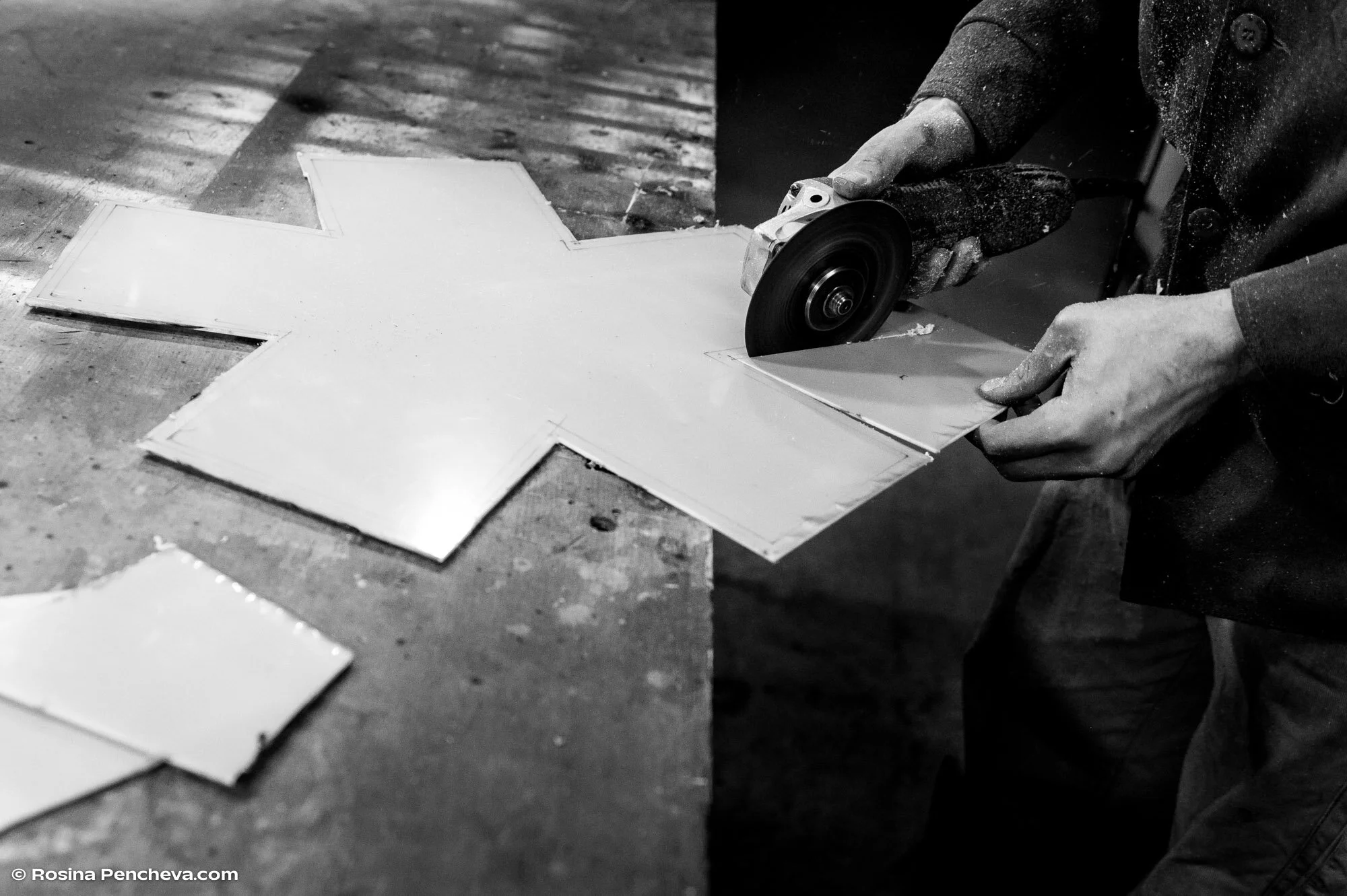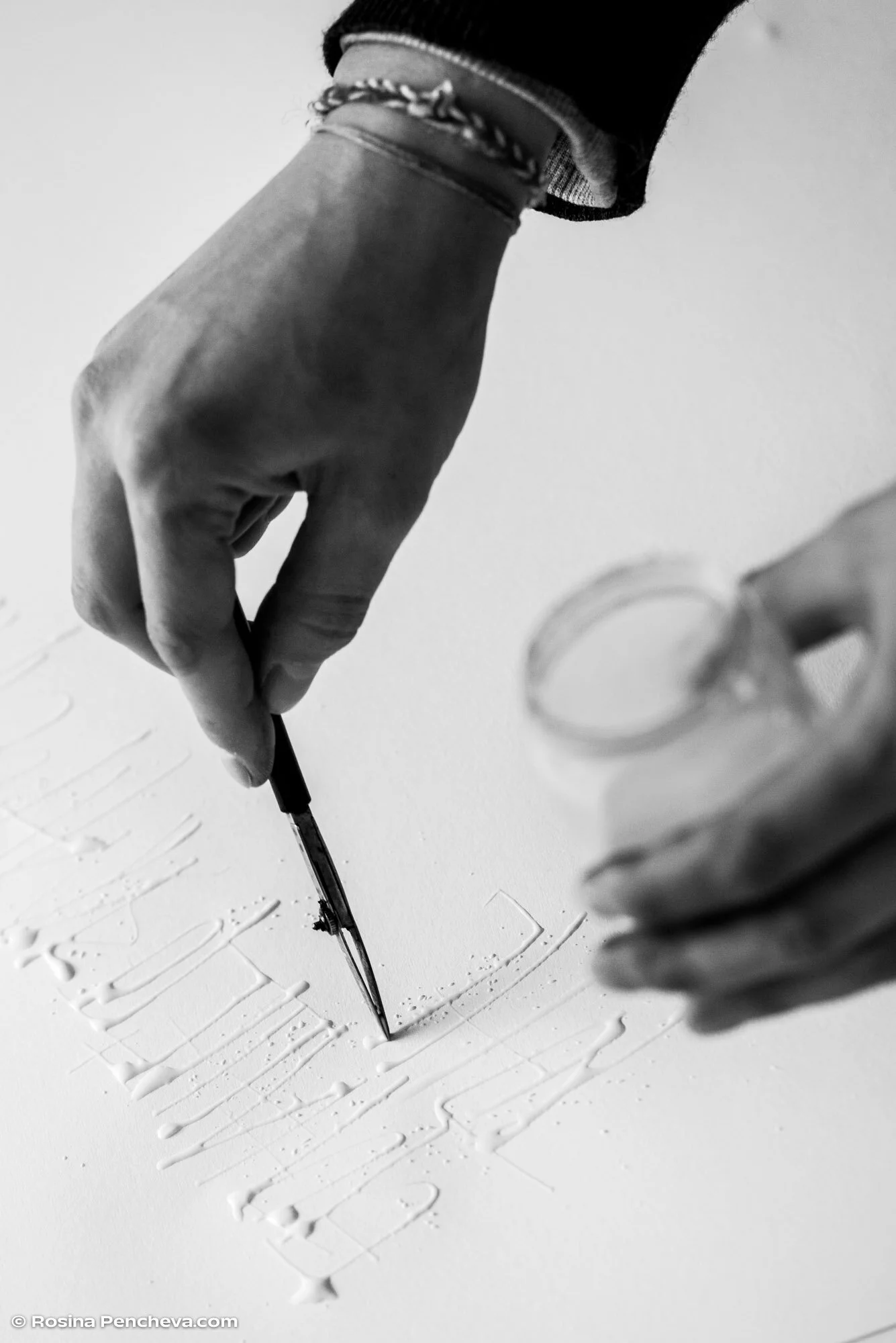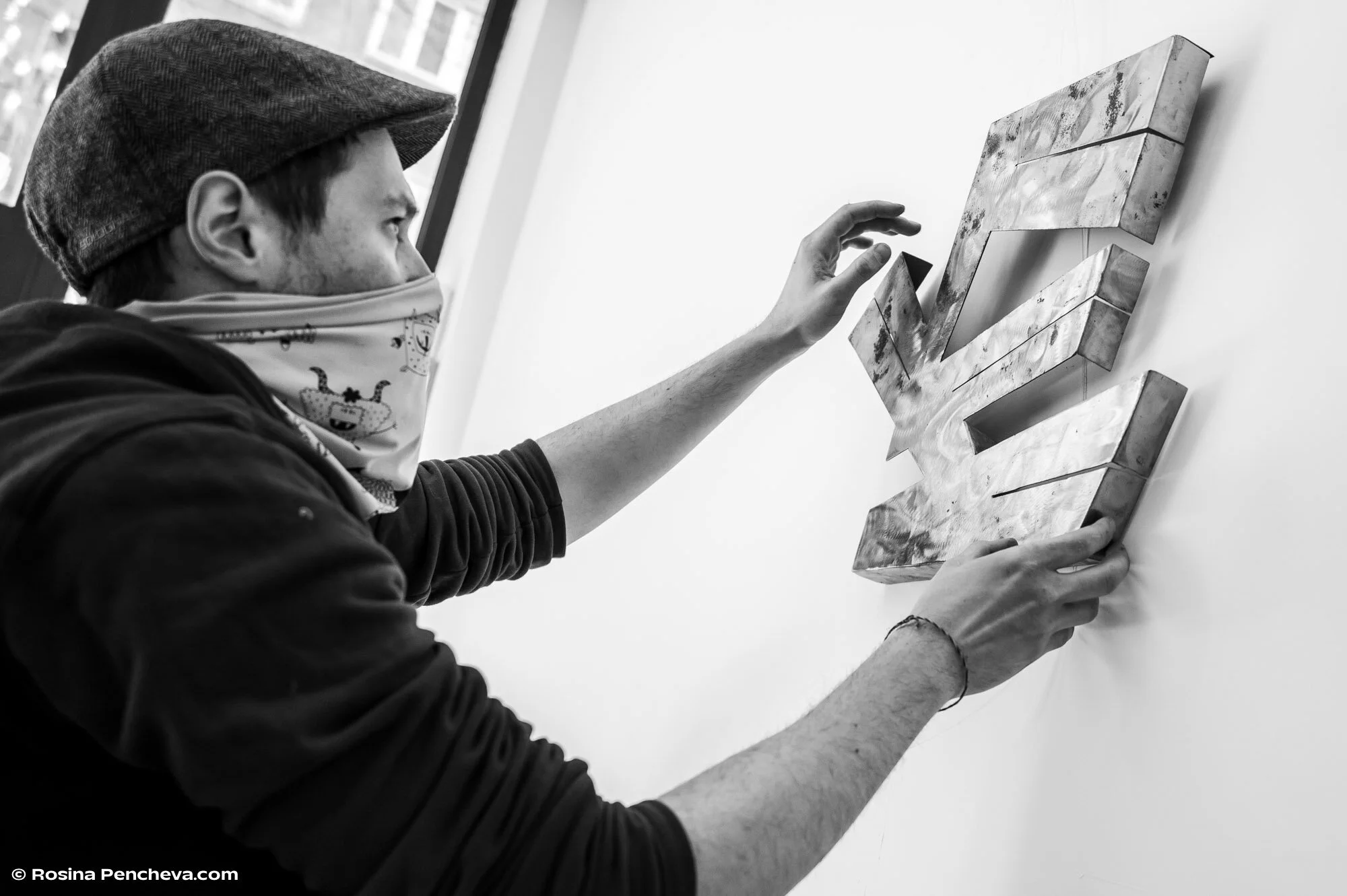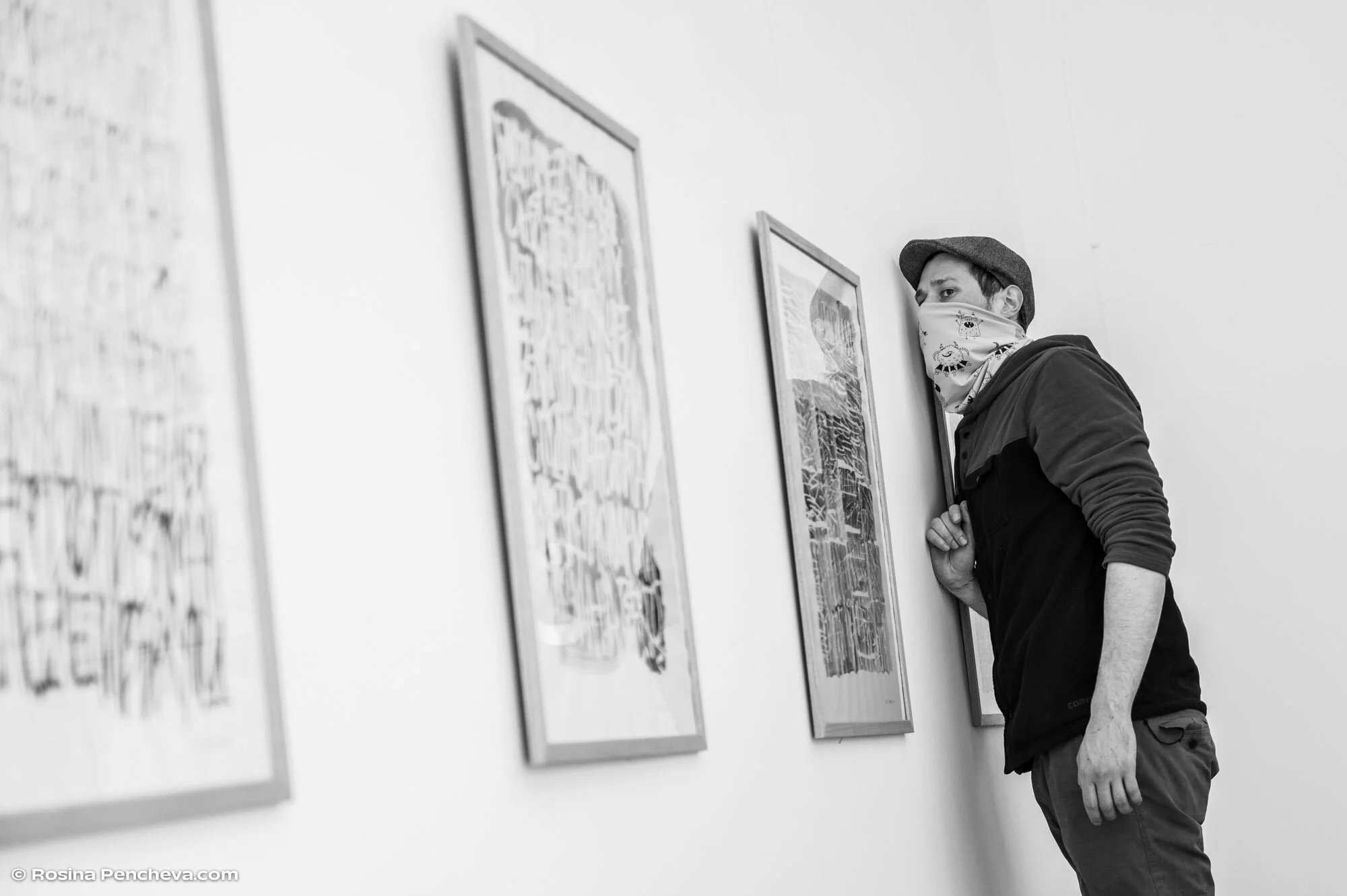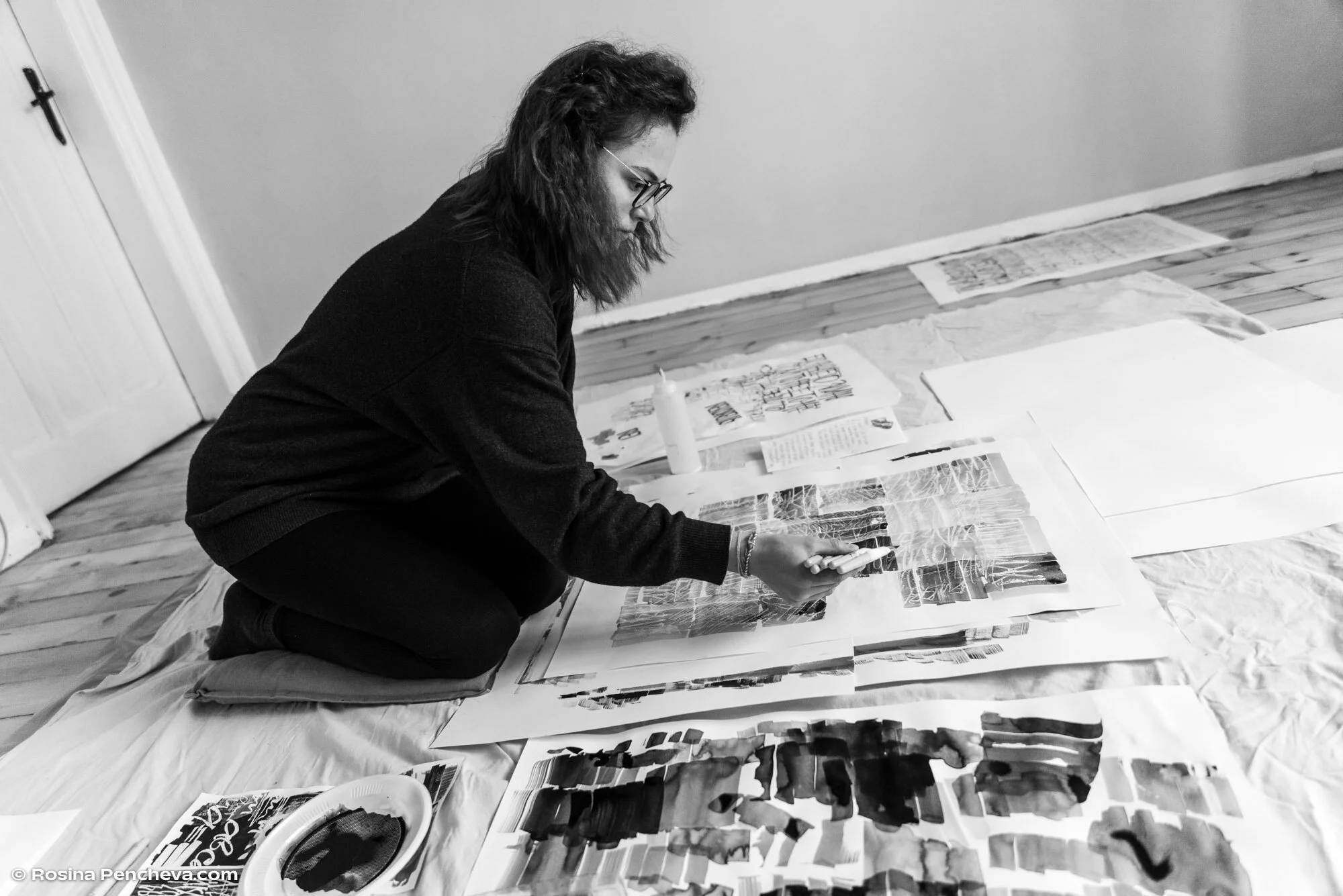
The root of happiness
Crafting of objects: Todor Georgiev
Calligraphic works by: Jacklina Jekova
Altruist is a cosy urban café in the heart of Sofia where we had the opportunity to showcase some of our non-client work during the first wave of the Covid-19 nonsense. Some of our pieces from previous shows were ready to display, however, we felt it'd be cool to create something fresh just for the occasion. Since at that time most of us were isolated and worked from home, we decided to work on two separate projects, both in the field each one of us was currently comfortable with.
Tozzi went with the fabrication of a LED lamp with a steel frame in the shape of an аsterisk*. Handmade from start to finish – cut, welded, wired, and assembled in his home workshop. This piece now resides with Mirela Belova (Type Forward foundry).
Jacky chose to work on calligraphy experiments using masking fluid, ink, flat brushes, and a ruling pen on paper. The result was a series of framed 50 × 70 cm works. All sold out.
We were super fortunate to have Rosina Pencheva capture the process of bringing these pieces to life. As a result, we ended up as a part of her photographic project “Without and Audience” which documents the creative process of artists during this difficult period of the pandemic.